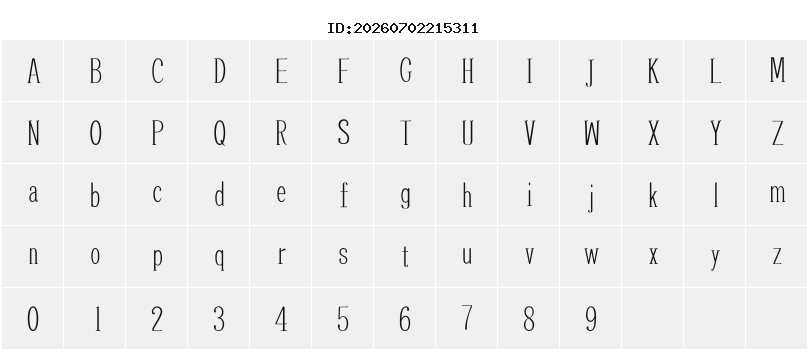
• Font Name: 109-上首韶华体
• Font ID: 109-SS Shao Hua Ti:Version 6.00
• Full Font Name: 109-上首韶华体
• Version: Version 6.00 January 11, 2022
• PostScript Name: 109-SSShaoHuaTi
• Character Count: 7569
• Manufacturer: 上首造字
About 109-上首韶华体.ttf
109-上首韶华体.ttf is a modern, elegant sans-serif font designed for ultimate readability and visual harmony. Perfect for branding, headlines, web design, and print materials.